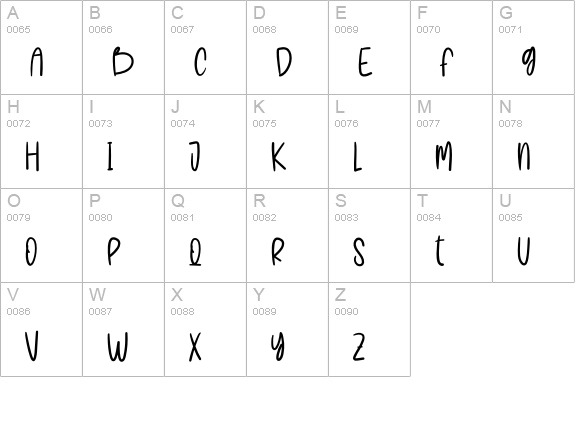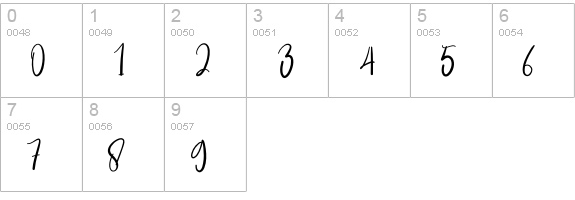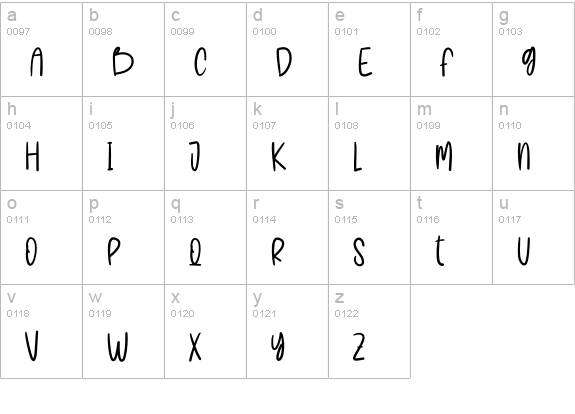
Bobo Font Details
Bobo is a free for personal use font in the Script > Handwritten category, designed by scratchones. It has been downloaded 19 times and is available for Windows, Mac and Linux.
Introducing Bobo font - a playful and whimsical typeface that adds a touch of fun to any design project. With its rounded edges and friendly appearance, Bobo is perfect for creating eye-catching headlines, posters, invitations, and more. This versatile font is sure to bring a smile to your audience's faces.